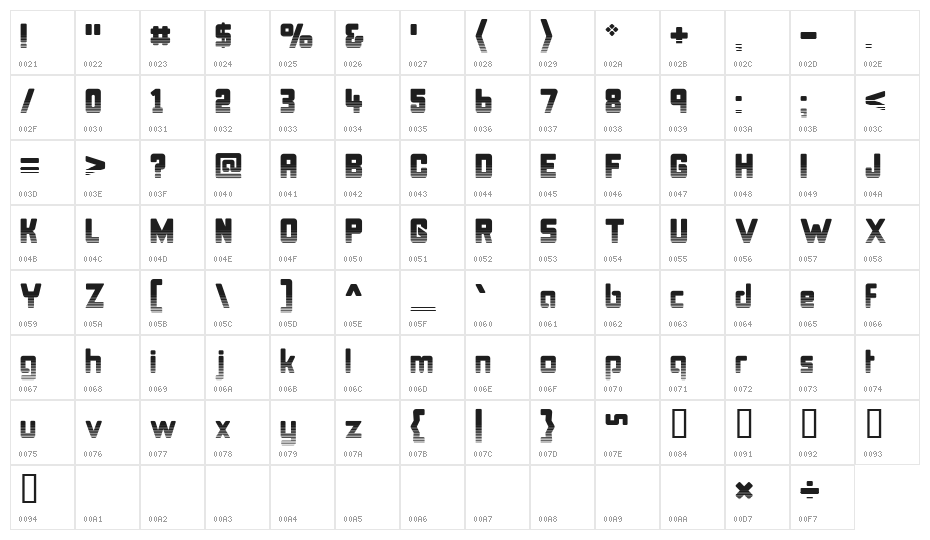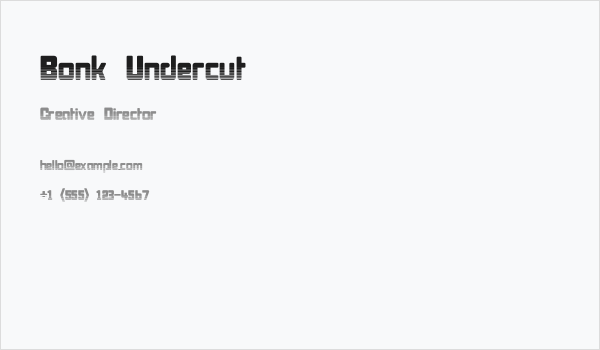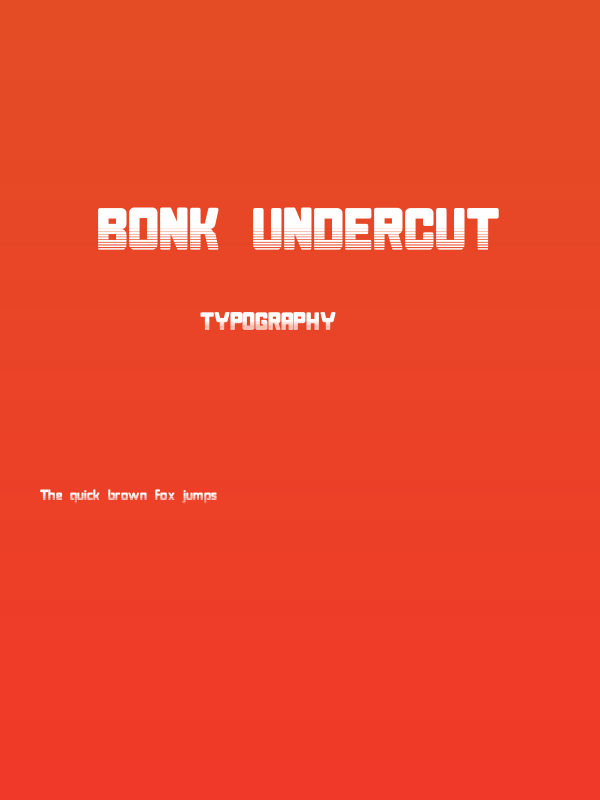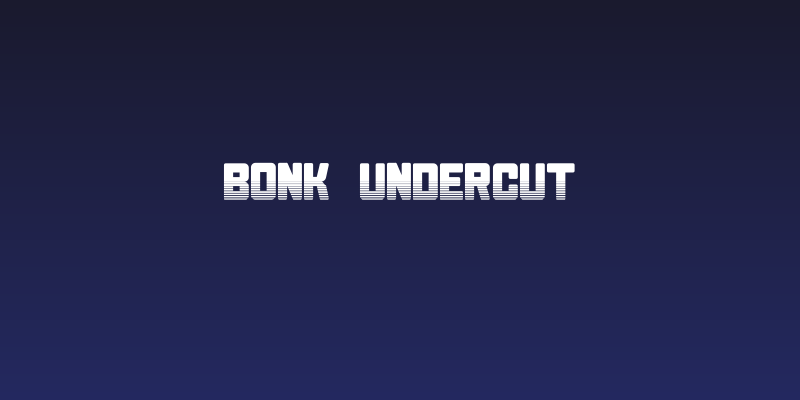
Bonk Undercut Font
Bonk Undercut Description
This font features a bold, futuristic design with a distinctive striped pattern running horizontally through each character. The uppercase and lowercase letters maintain a consistent width, creating a uniform appearance. The geometric shapes and sharp angles give it a modern and edgy look, while the horizontal lines add a sense of movement and depth. The numerals and special characters follow the same design principles, ensuring a cohesive style throughout. This font is ideal for projects that require a strong visual impact and a contemporary aesthetic.
| Proposed Projects | Ideal for branding, posters, album covers, and digital media that require a modern and striking appearance. |